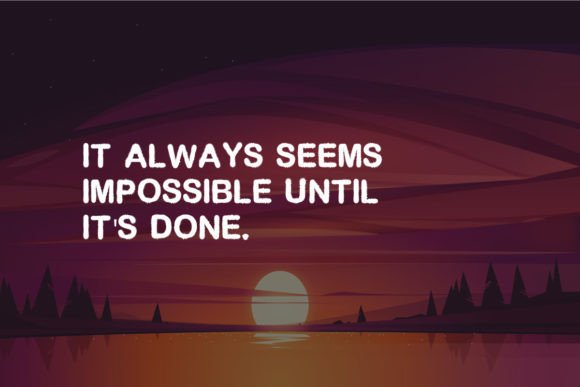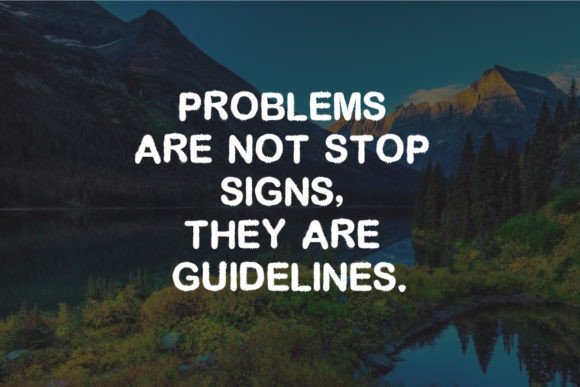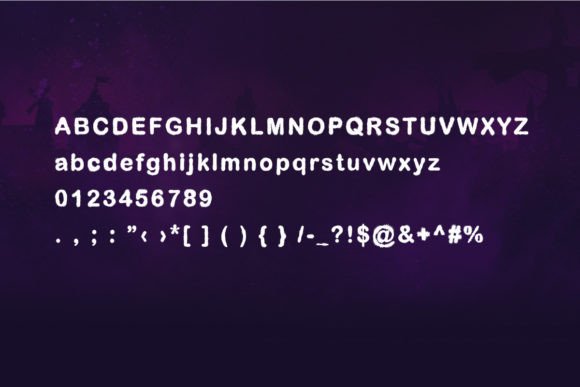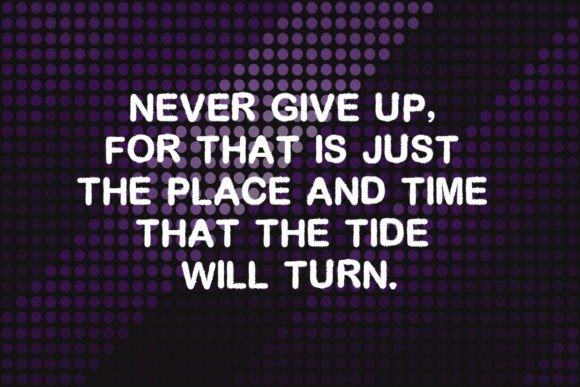
Introduction to Porcupa Font Font
Fonts play a crucial role in design, and the Porcupa Font font is a typeface that brings both character and versatility to any project. Whether you’re working on a branding project, a website, or a print design, the Porcupa Font font offers a unique style that can elevate your work.
Porcupa is a lovely and cute display font.
Whimsical and a little bit quirky, this font is perfect for a large variety of design ideas .
Key Features of Porcupa Font Font
Why Choose Porcupa Font Font?
The Porcupa Font font is more than just a typeface – it’s a design tool that helps you communicate your message with style and clarity. Its unique character set and versatile design make it suitable for a wide range of applications, from elegant invitations to bold headlines.
With its carefully crafted letterforms and balanced proportions, the Porcupa Font font ensures readability and visual appeal across all mediums.
What makes Porcupa Font font special?
The Porcupa Font font stands out with its unique design, exceptional readability, and versatility across various design applications.